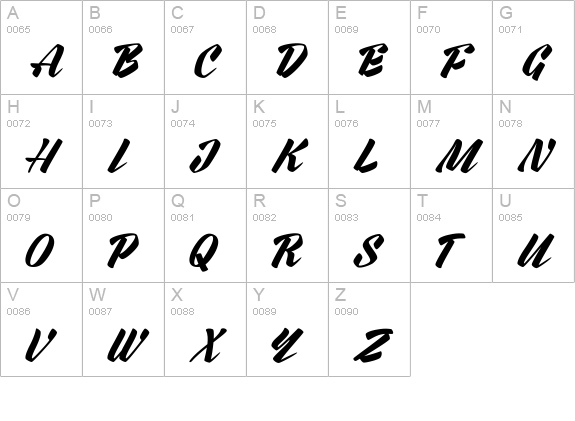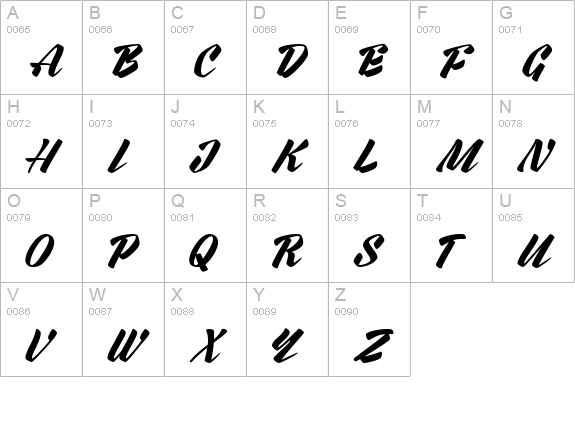
Rurable Personal Use Only Font Details
Introducing Rurable Personal Use Only font, a stunning typeface that effortlessly captures attention and adds a touch of elegance to any project. With its sleek and modern design, Rurable is the perfect choice for those seeking a font that exudes professionalism and sophistication. This versatile font features clean lines and a balanced letterform, making it highly readable and suitable for a wide range of applications. Whether you're designing a logo, creating marketing materials, or crafting a beautiful website, Rurable will elevate your work to new heights. One of the best things about Rurable is that it is free for personal use. That's right, you can download this remarkable font without spending a dime. Simply head over to FontsMarket.com, where Rurable is readily available for download. This means that you can use it for your personal projects, such as invitations, greeting cards, or even creating eye-catching social media graphics. Rurable Personal Use Only font is a true game-changer for anyone in need of a high-quality font that doesn't break the bank. Its versatility, elegance, and availability make it a must-have for designers, entrepreneurs, and creatives alike. Don't miss out on the opportunity to enhance your projects with this exceptional font. Download Rurable Personal Use Only font today and witness the transformative power it brings to your designs. FontsMarket.com is your go-to destination for free fonts, and Rurable is just one of the many gems waiting to be discovered.